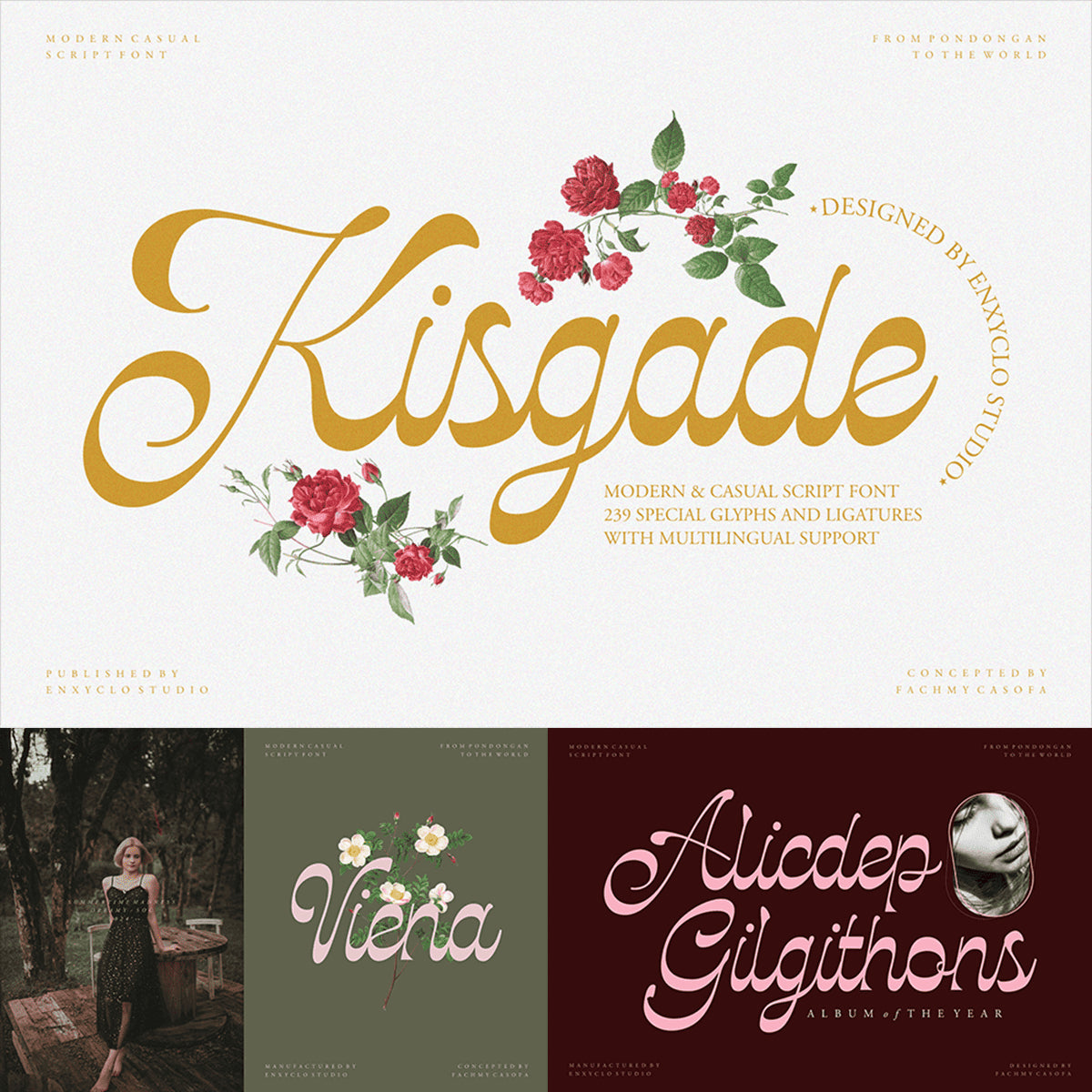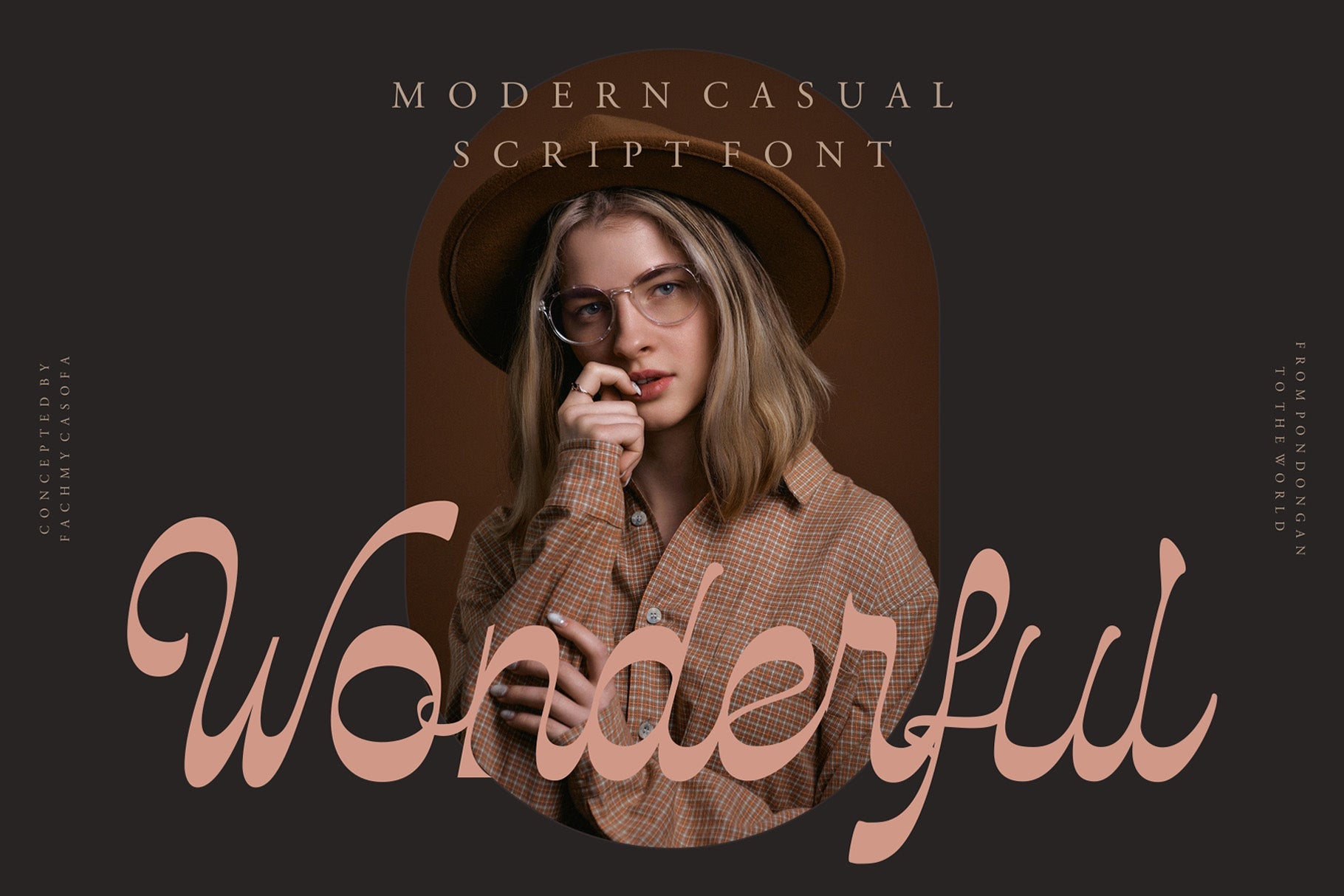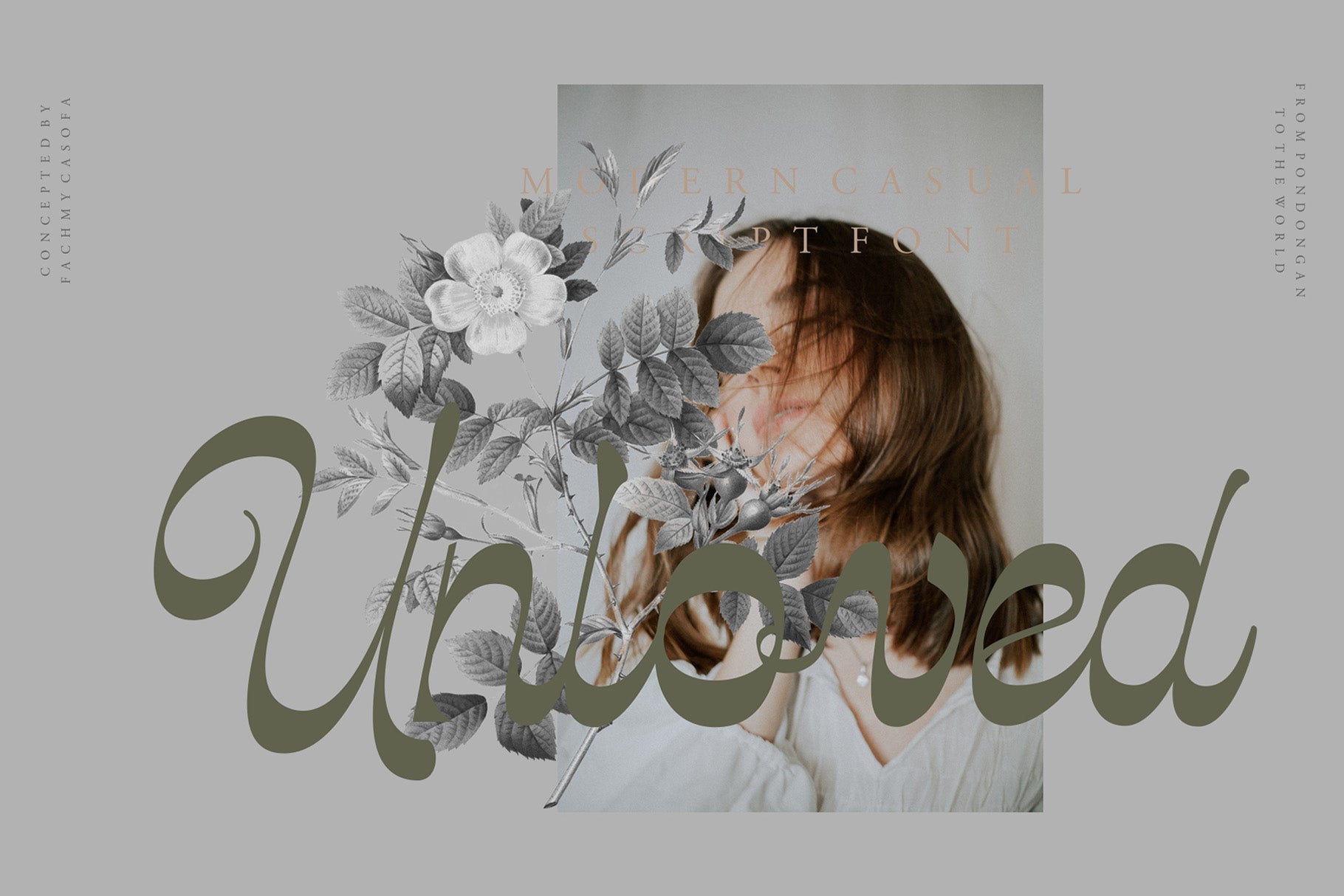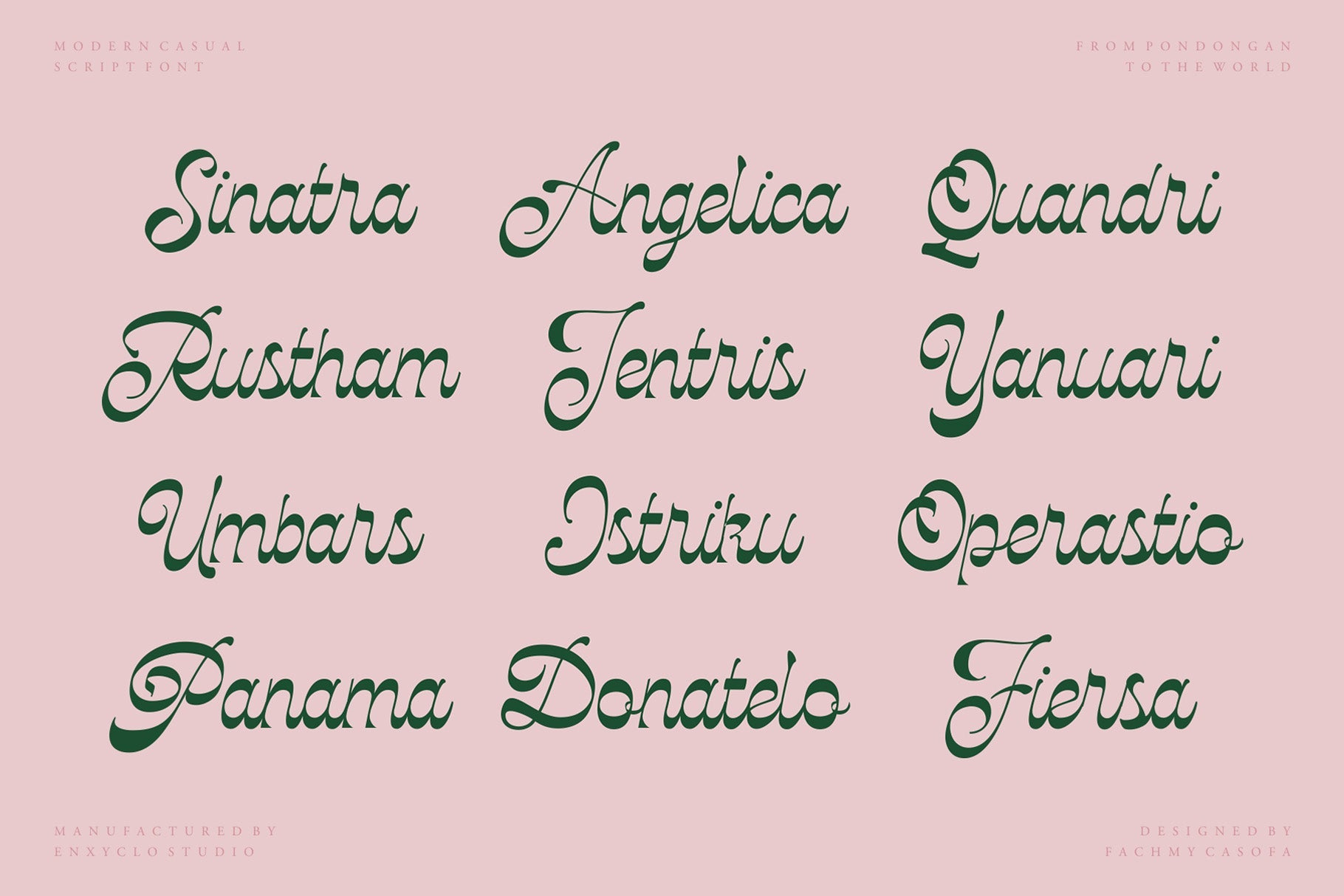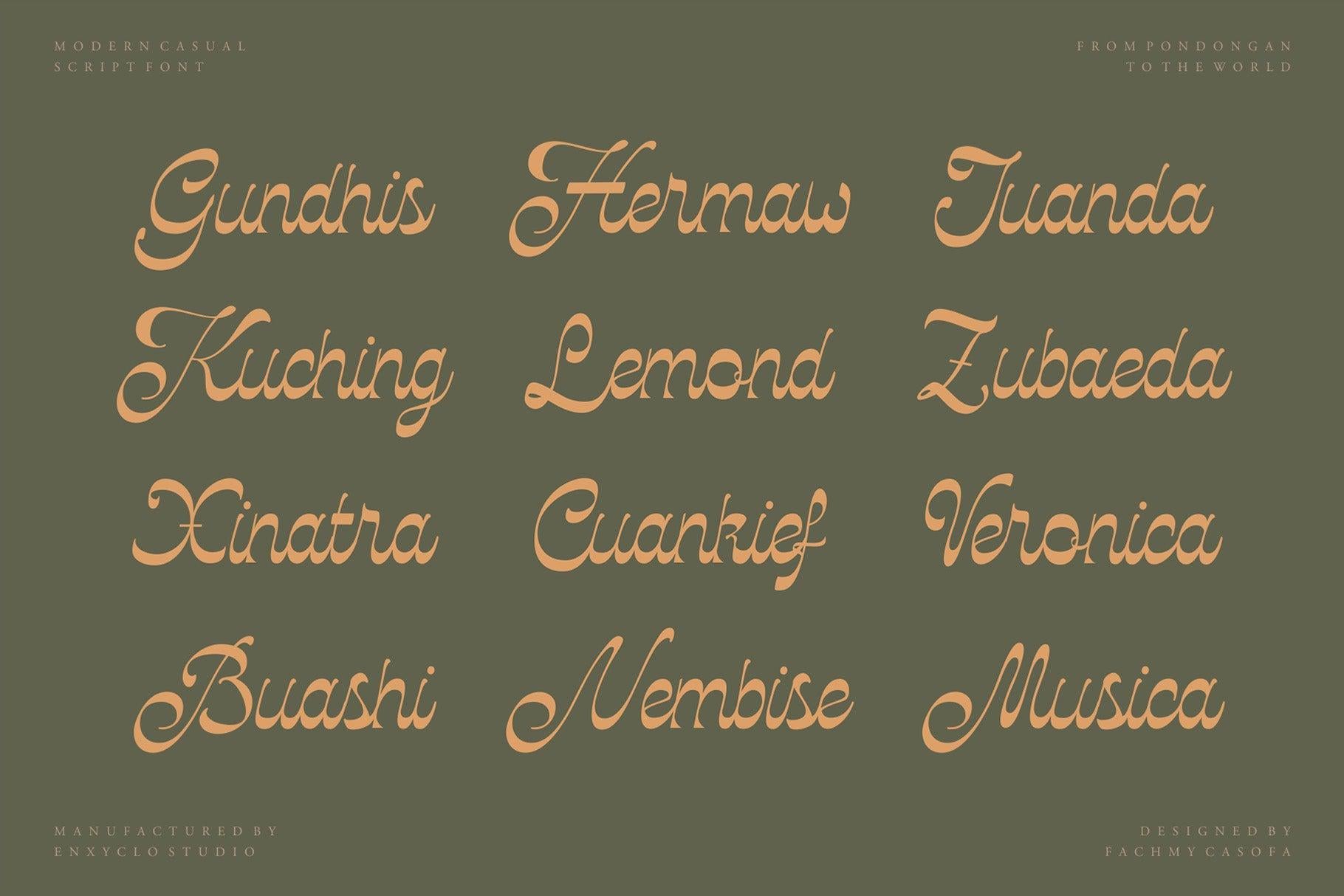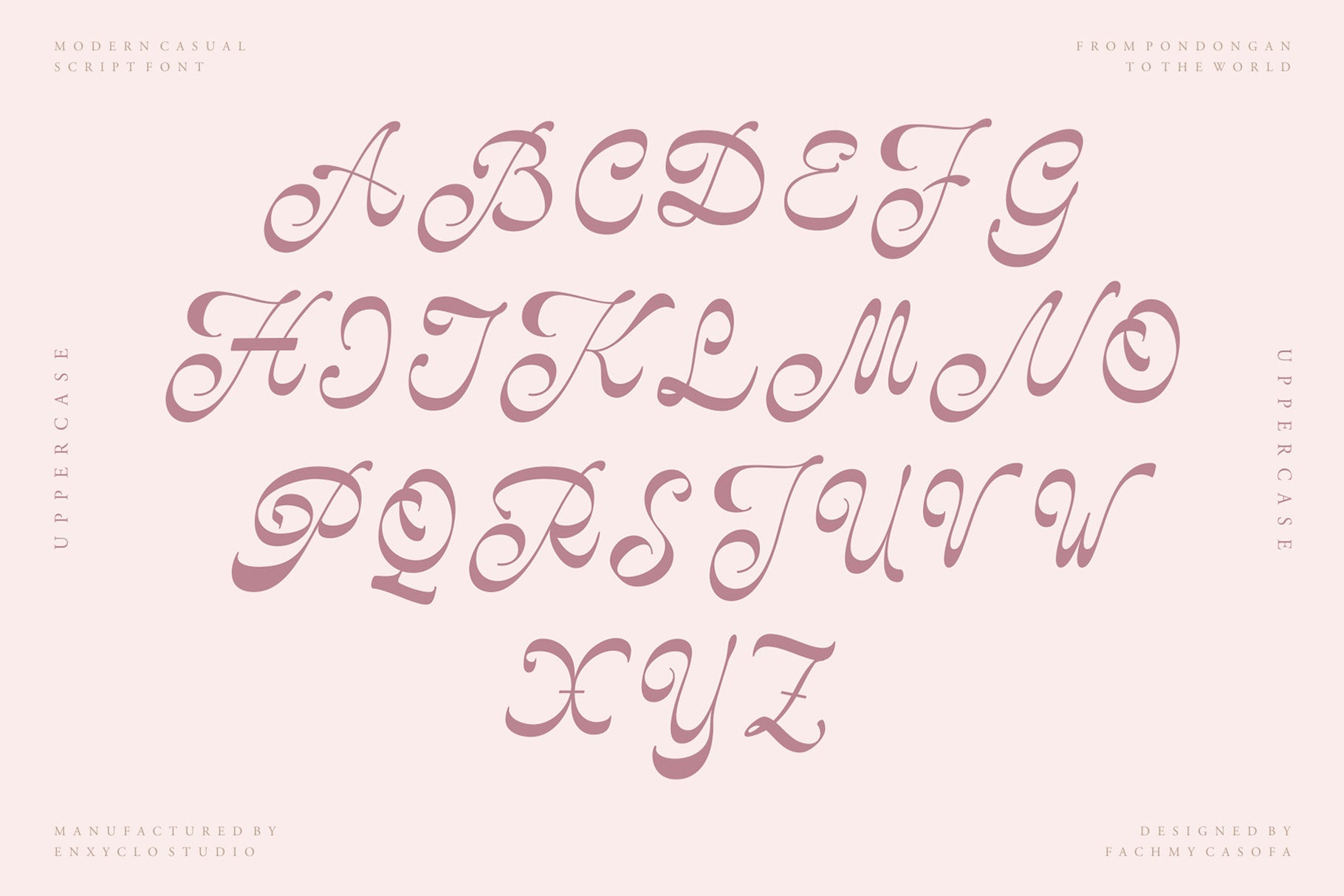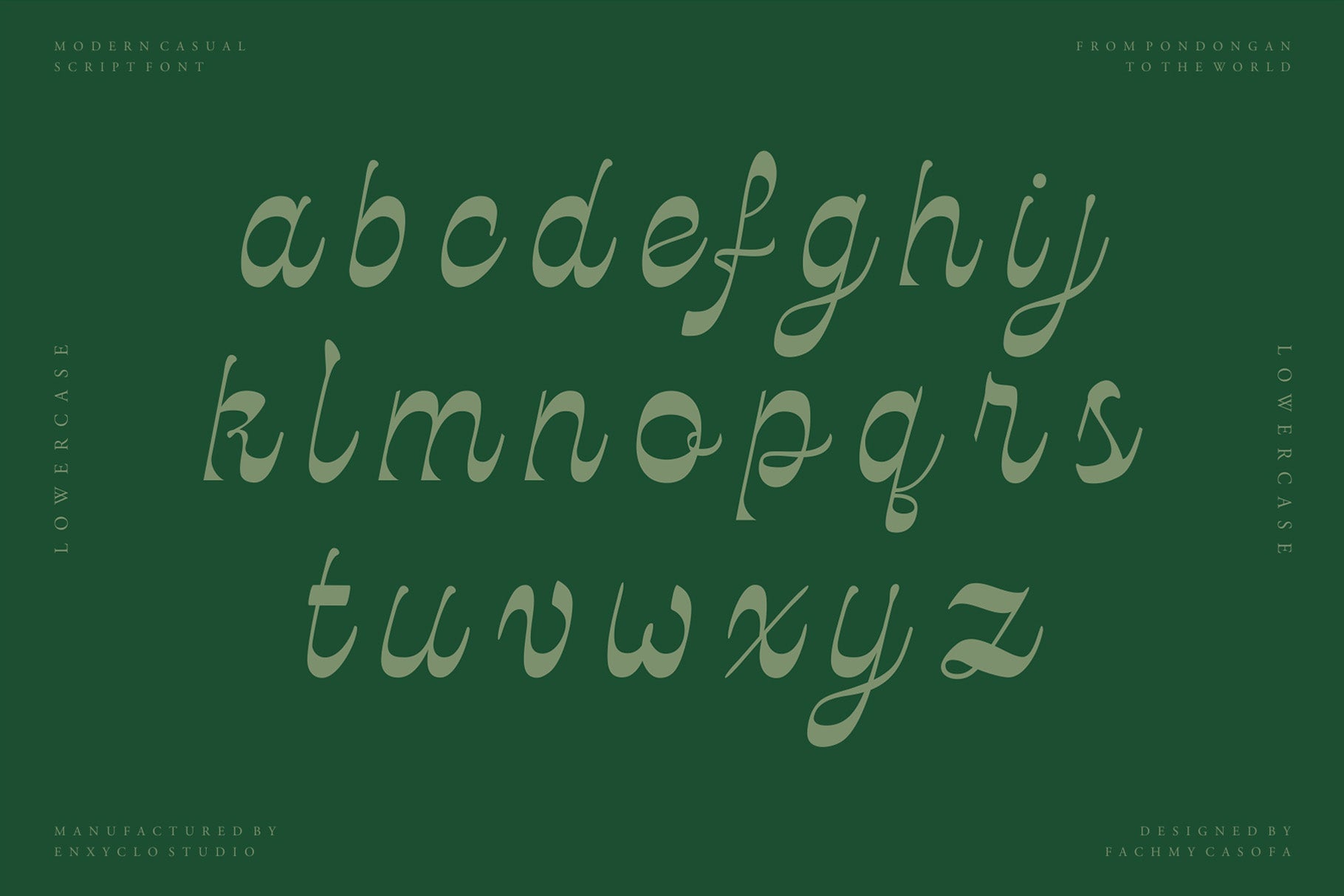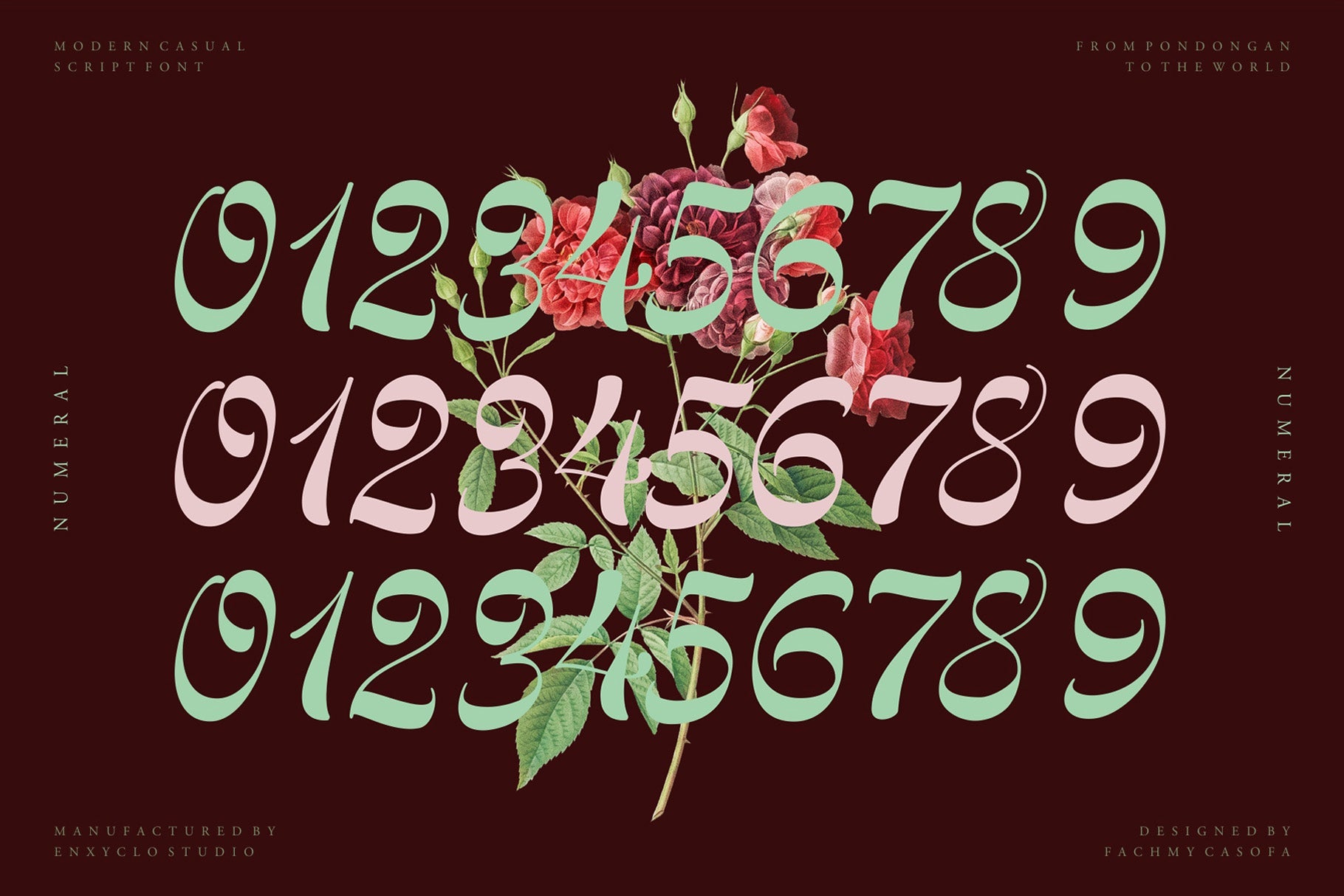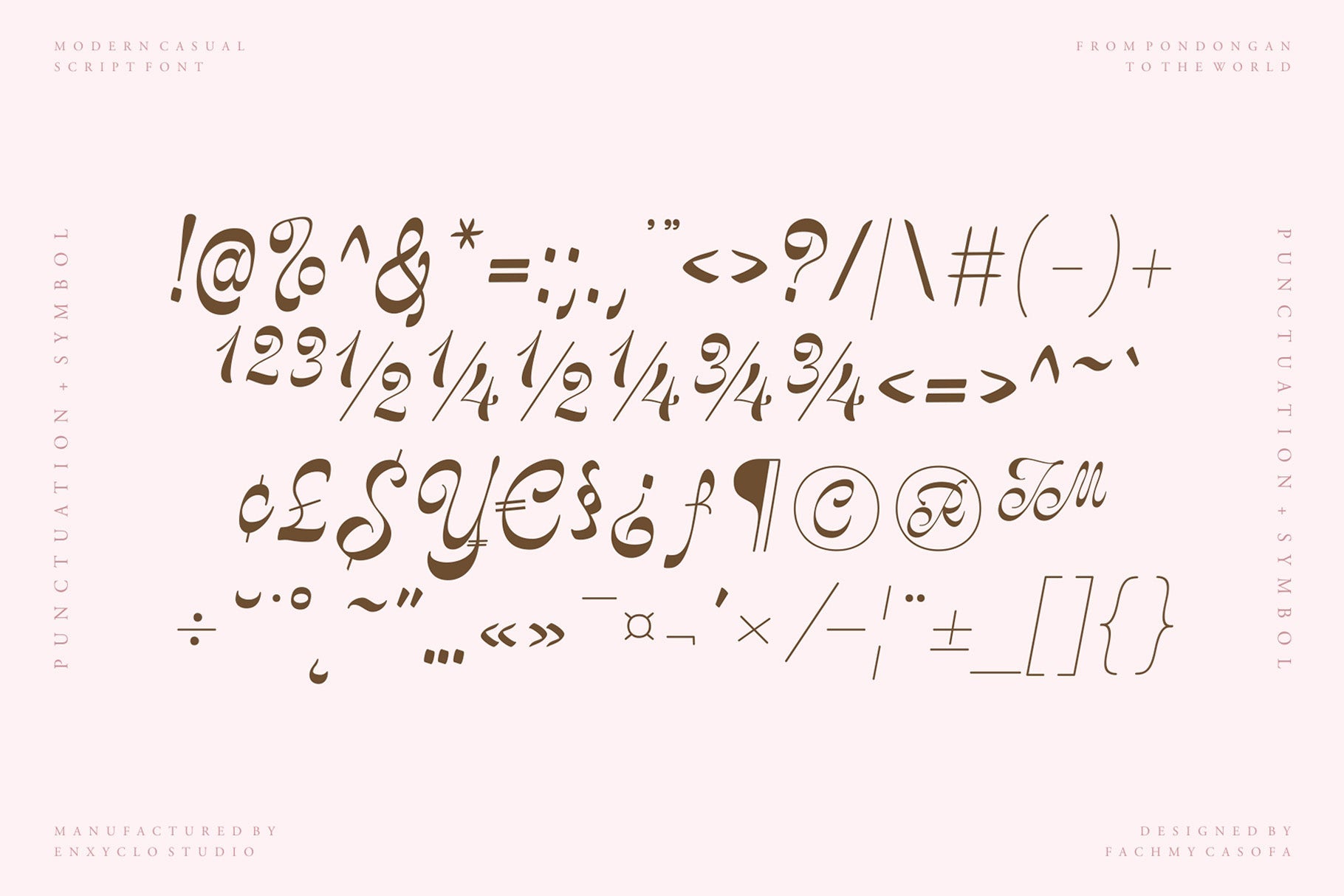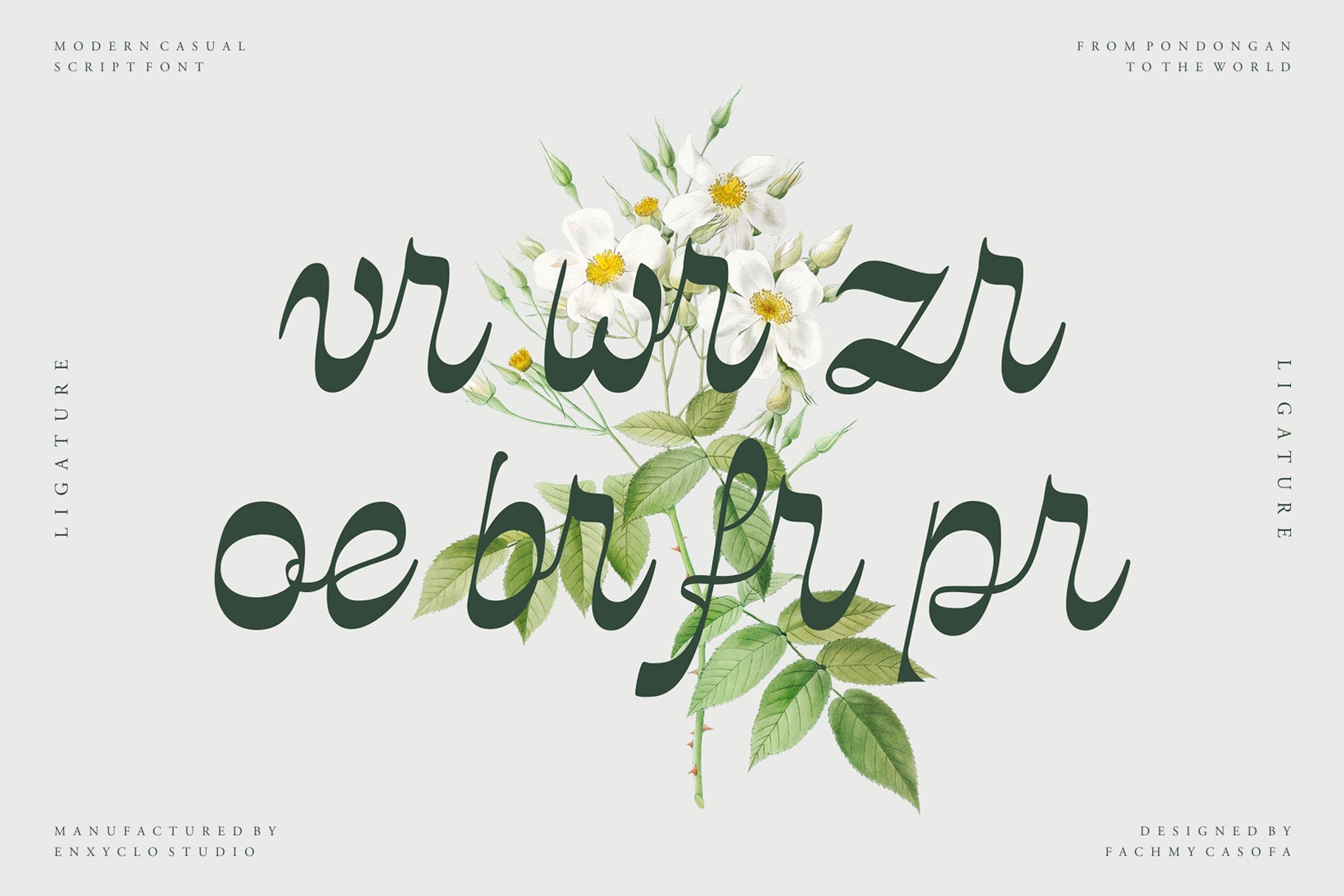
KISGADE — Elegant Script Calligraphy Font
NCL KISGADE is a timeless modern bold script font designed to embody luxury, elegance, and expressive sophistication. With its flowing strokes, confident curves, and refined rhythm, this typeface creates a perfect balance between bold personality and graceful beauty. The result is a lavish and premium script font that instantly elevates any visual identity with a rich and elegant presence. Created for modern brands that seek distinction and style, NCL KISGADE delivers a luxurious aesthetic that feels both fashionable and timeless. Its bold script character gives every logo, brand, and visual design a strong identity while preserving the softness and charm that make script typography feel personal and memorable. Every letter is crafted to express refinement, glamour, and artistic elegance.
Uppercase & Lowercase Letters
Numeral, Punctuation Marks, Currencies & Symbol Set
Ligature & Multilingual Support
The NCL Kisgade is a modern script font that features an elegant design. It includes True Type Font (TTF), Open Type Font (OTF), and Web Open Format (WOFF1 & WOFF2), with a total of 239 glyphs, uppercase and lowercase letters, numerals, punctuation, symbols, and special ligatures. The font supports 68 languages.